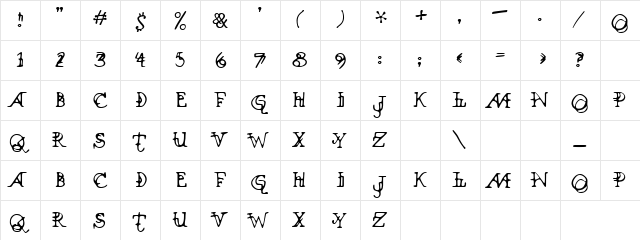
Stereo Regular
Design Context for Stereo Typeface
Stereo is a composed and adaptable typeface that performs quietly and consistently across a wide range of design contexts.